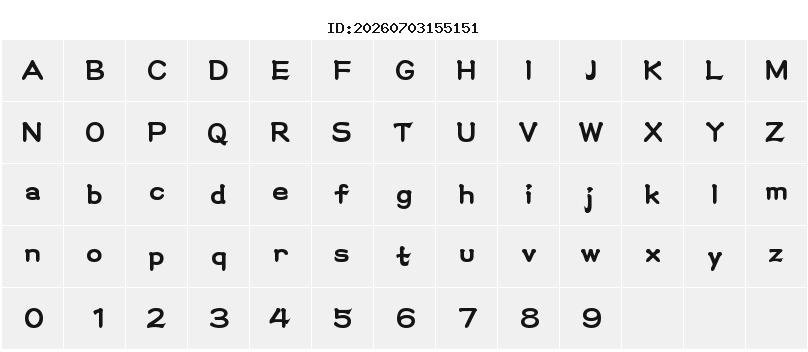
369-上首浮生体 Preview
• Font Name: 369-上首浮生体
• Font ID: 369-SSFuSheng Ti:Version 4.00
• Full Font Name: 369-上首浮生体
• Version: Version 4.00 November 25, 2024
• PostScript Name: 369-SSFuShengTi
• Character Count: 7568
• Manufacturer: 上首造字
About 369-上首浮生体.ttf
369-上首浮生体.ttf is a modern, elegant sans-serif font designed for ultimate readability and visual harmony. Perfect for branding, headlines, web design, and print materials.